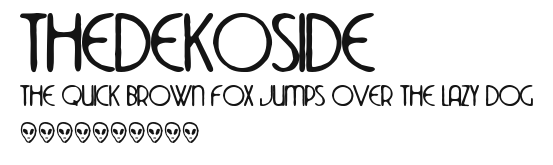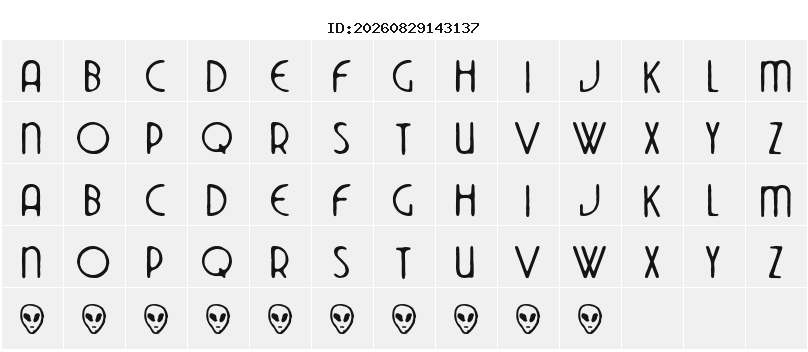
About TheDekoSide.ttf
TheDekoSide.ttf is a modern, elegant sans-serif font designed for ultimate readability and visual harmony. Perfect for branding, headlines, web design, and print materials.